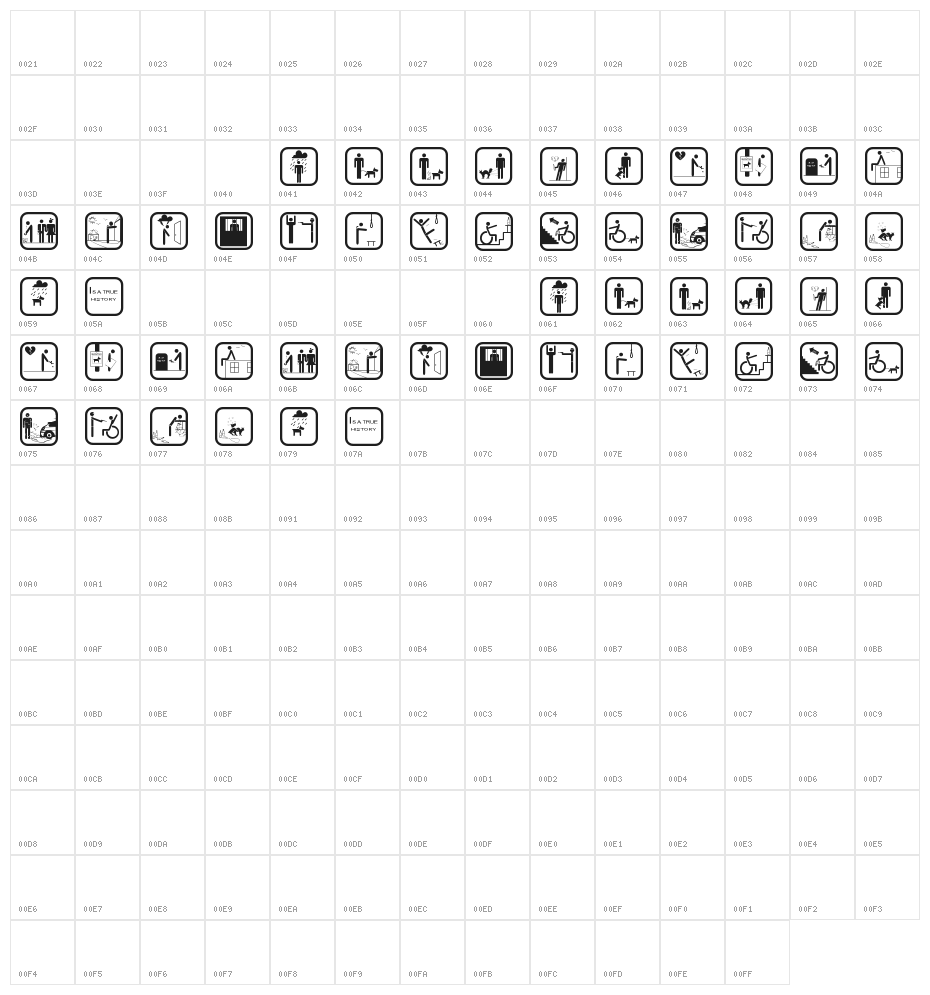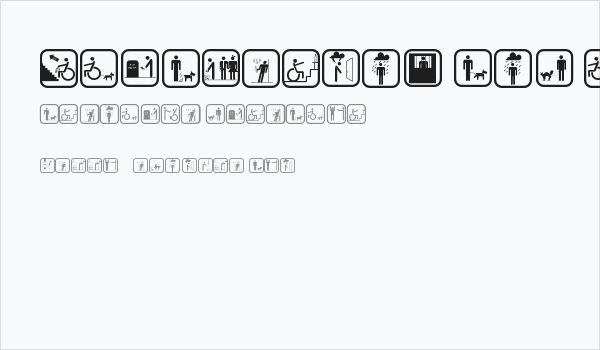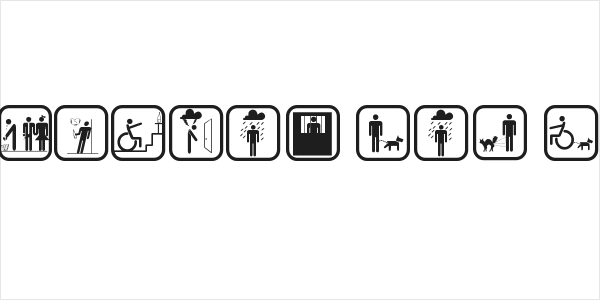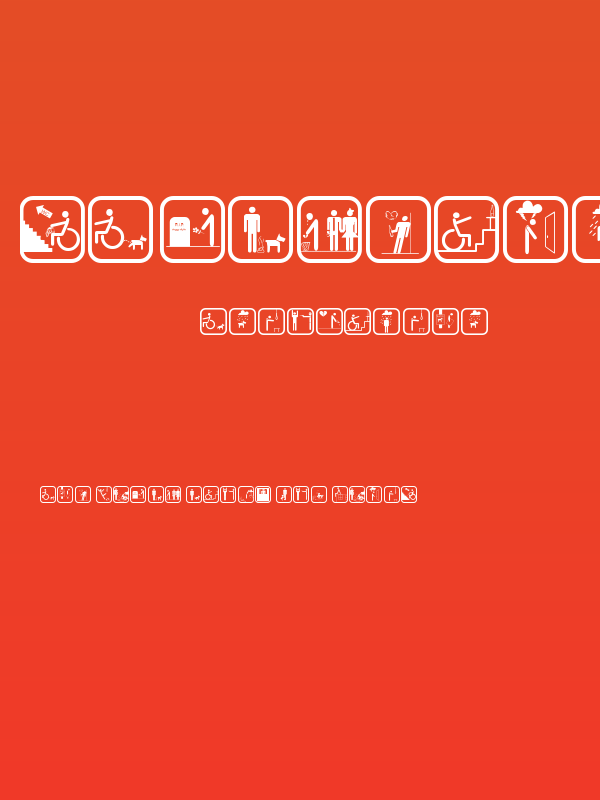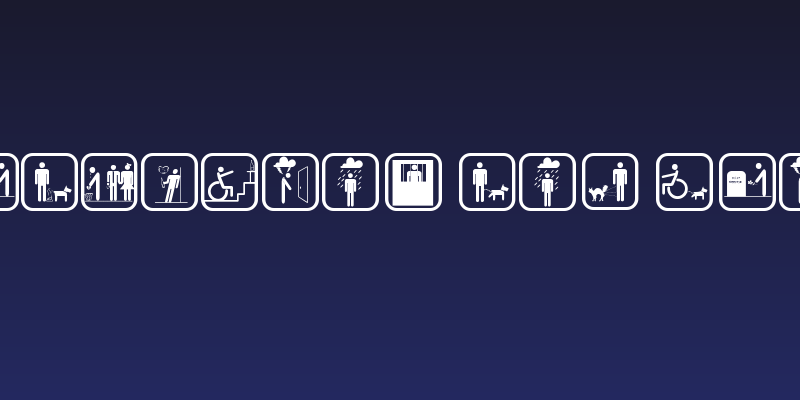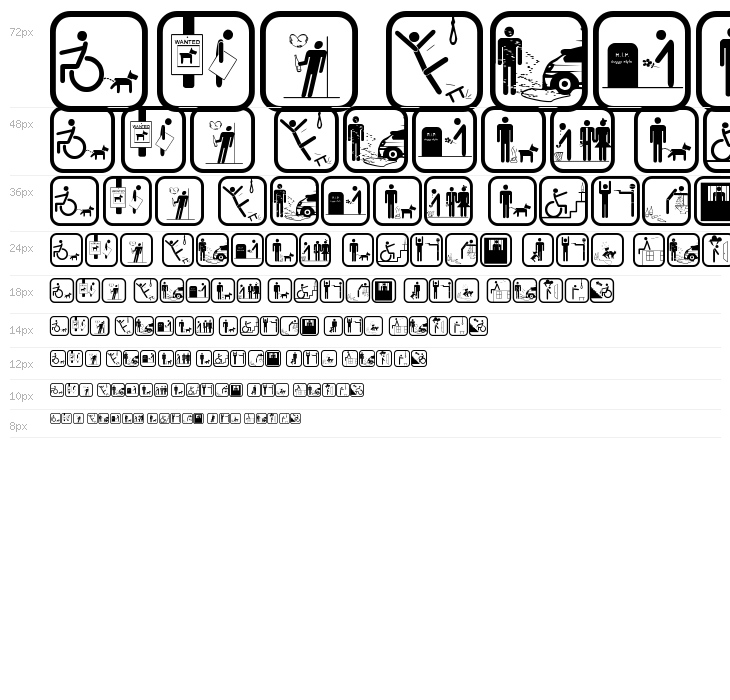
Stickerman bad times Font
Stickerman bad times Description
A pictogram-based decorative font where each character is represented by a unique stick figure scene or icon, all enclosed in rounded square borders. The icons depict various everyday and humorous scenarios, using simple black-and-white line art with minimal detail.